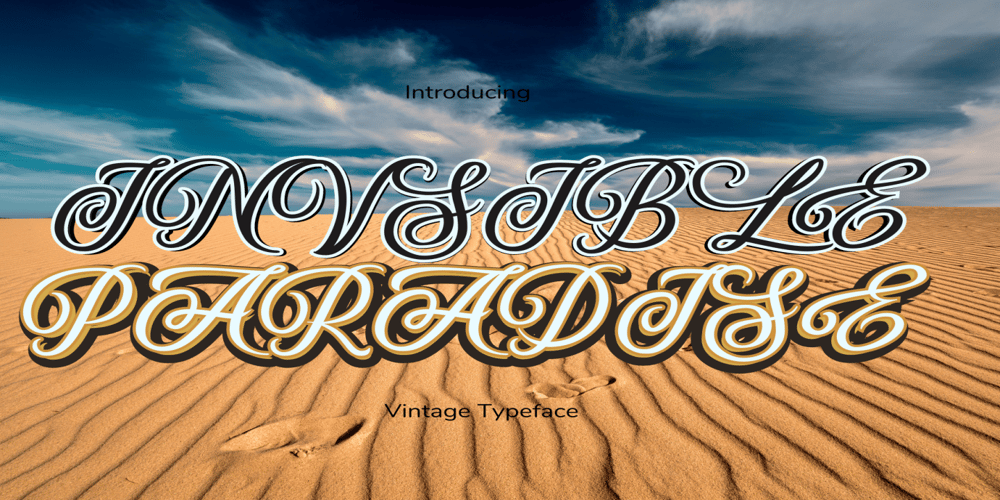
Infinity Paradise Font Family was designed by Michael Stacey and published by Adita Fonts. Infinity Paradise contains 1 styles and family package options. Invisible Paradise is a vintage and seductive calligraphy font. Inspired by vintage labels, signage, and packages, Paradise is ideal for similar design ideas but can enhance different designs due to its versatility and charm.